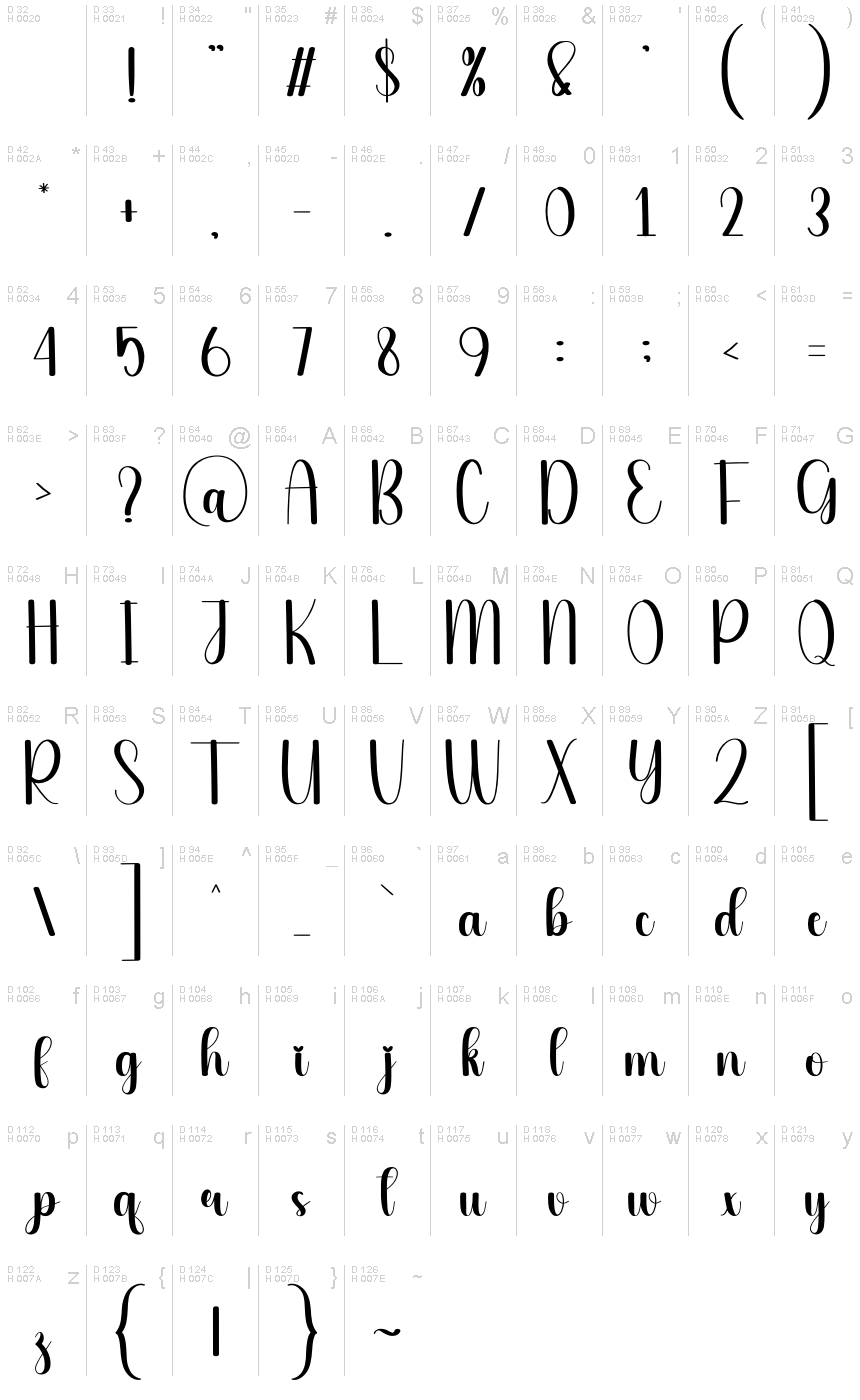
Dough
Dough font, crafted by Scratchones, exudes a captivating charm that beautifully marries elegance and playfulness. Its flowing calligraphic style features lush, sweeping curves that dance across the page, inviting the eye to linger and explore. This font stands out with its bold presence, striking a delightful balance between whimsical and refined.
Perfect for invitations, branding, or any design where warmth is essential, Dough lends itself to projects seeking an artisanal or personal touch. Whether enhancing a wedding announcement or elevating a brand’s identity with its unique flair, this font is versatile enough to leave a lasting impression in various creative contexts. Embrace the distinct personality of Dough for an unforgettable visual statement.